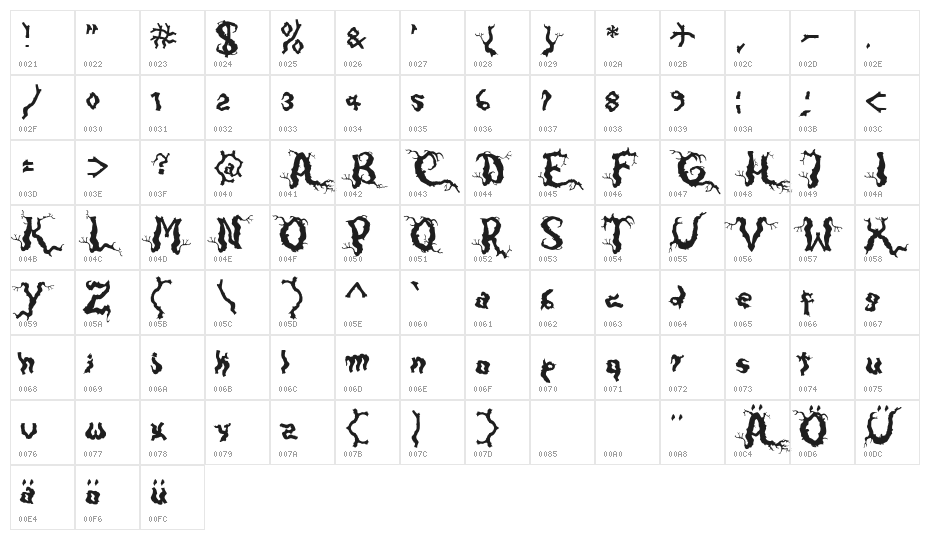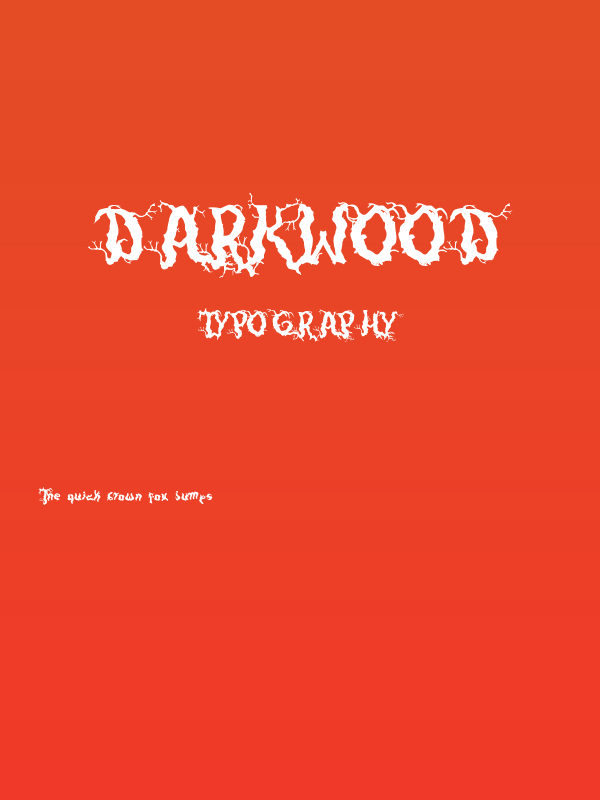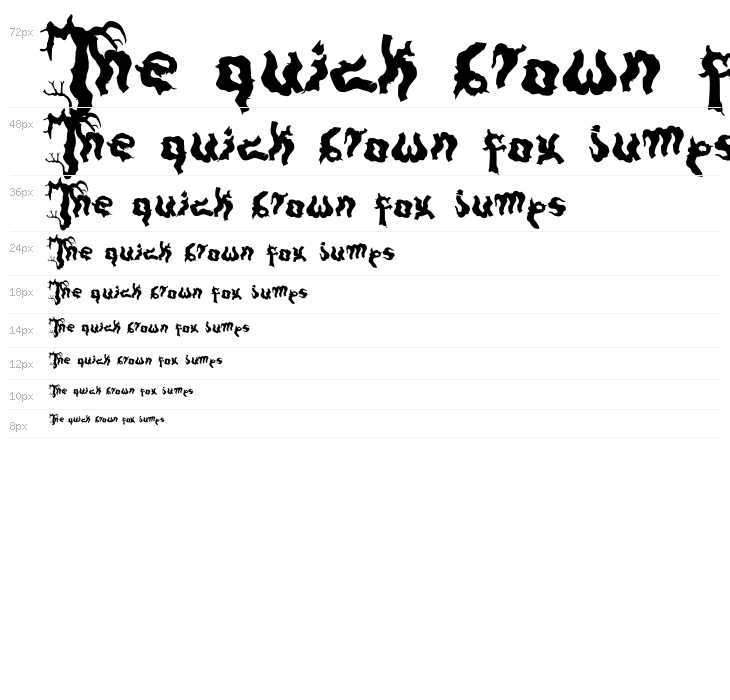
Darkwood Font
Darkwood Description
This font features a unique, organic design reminiscent of twisted branches or roots, creating a dark and mysterious aesthetic. The characters are irregular and jagged, with an intricate pattern that suggests a natural, almost eerie feel. The uppercase and lowercase letters maintain this theme, with each character appearing as if it has been carved from a gnarled piece of wood. Numbers and special characters follow the same style, ensuring a cohesive look across all text. The font's distinct appearance makes it ideal for projects that require a touch of the macabre or fantastical, such as horror-themed designs or fantasy book covers.
Proposed ProjectsIdeal for horror-themed designs, fantasy book covers, Halloween invitations, or any project requiring a mysterious, natural look.